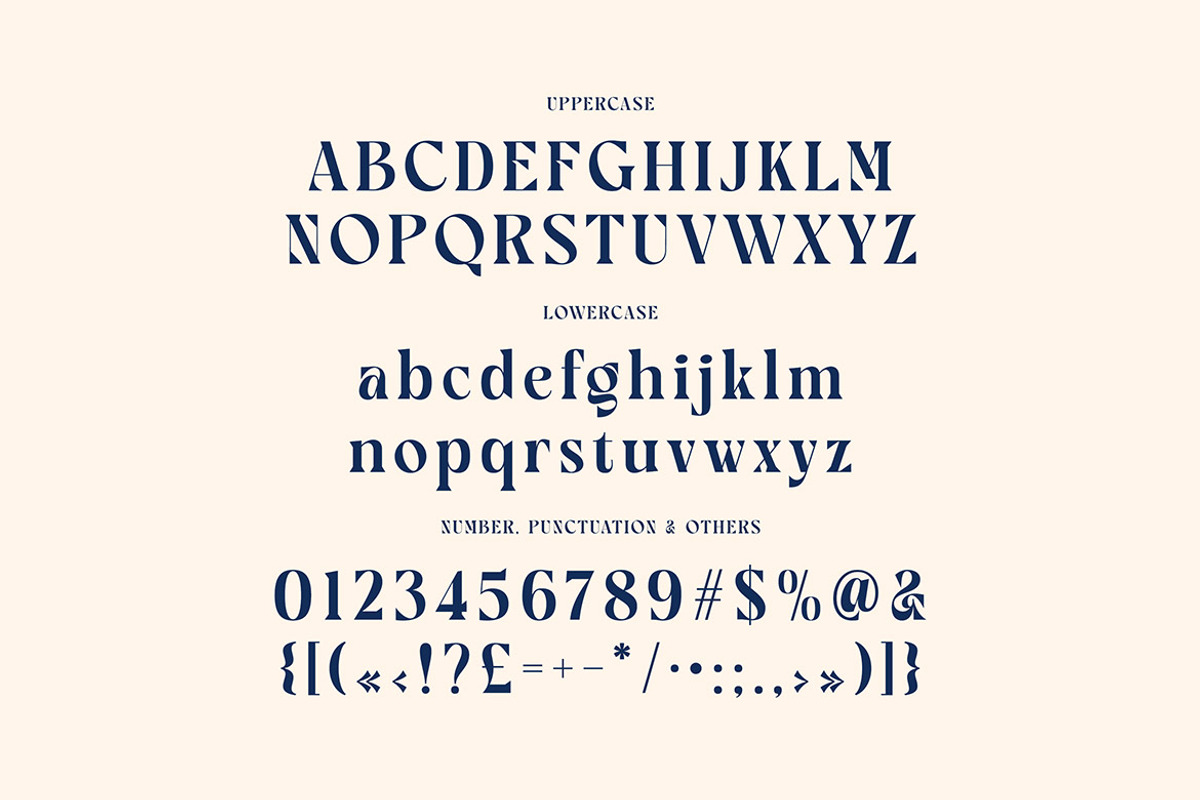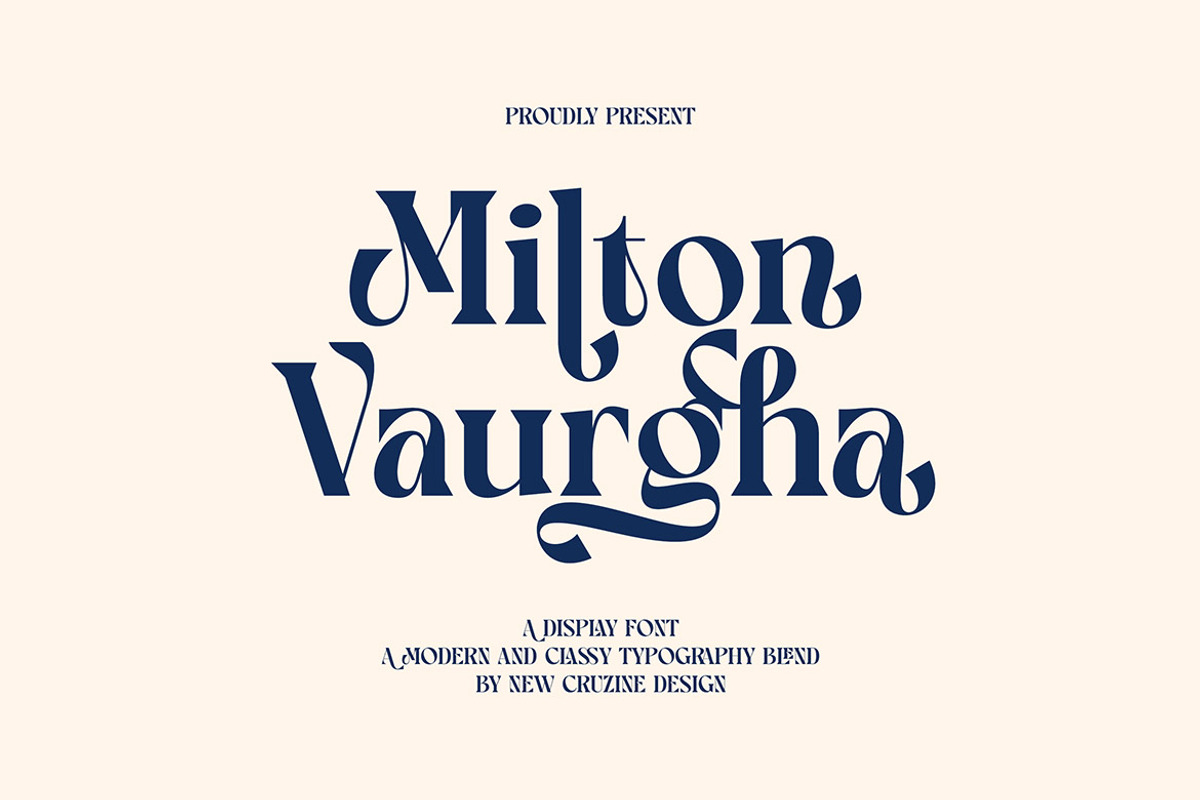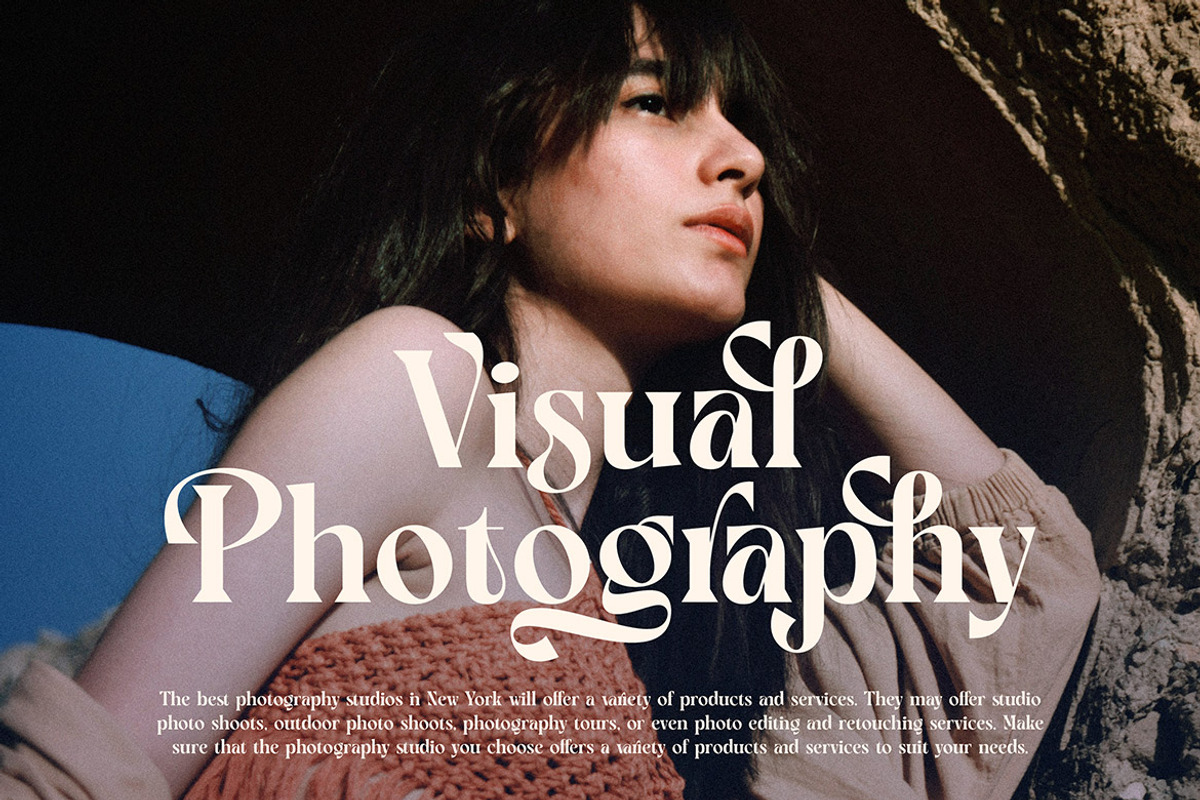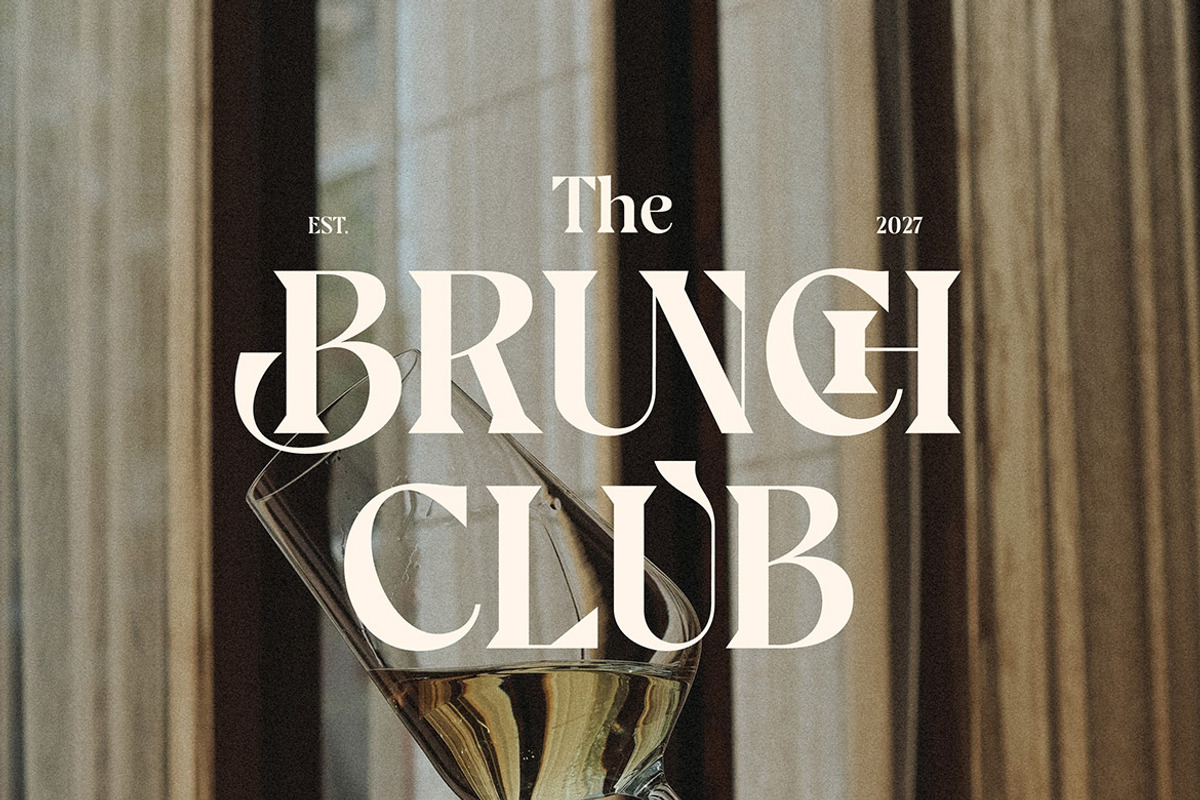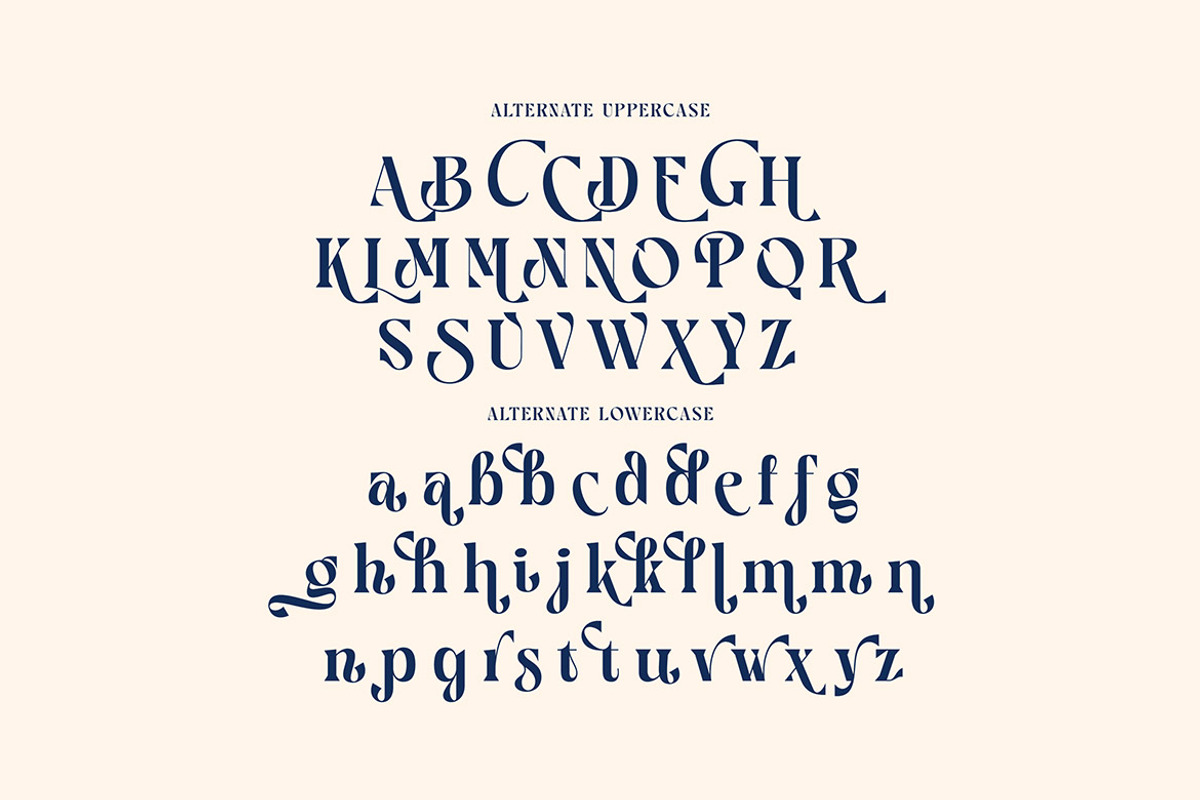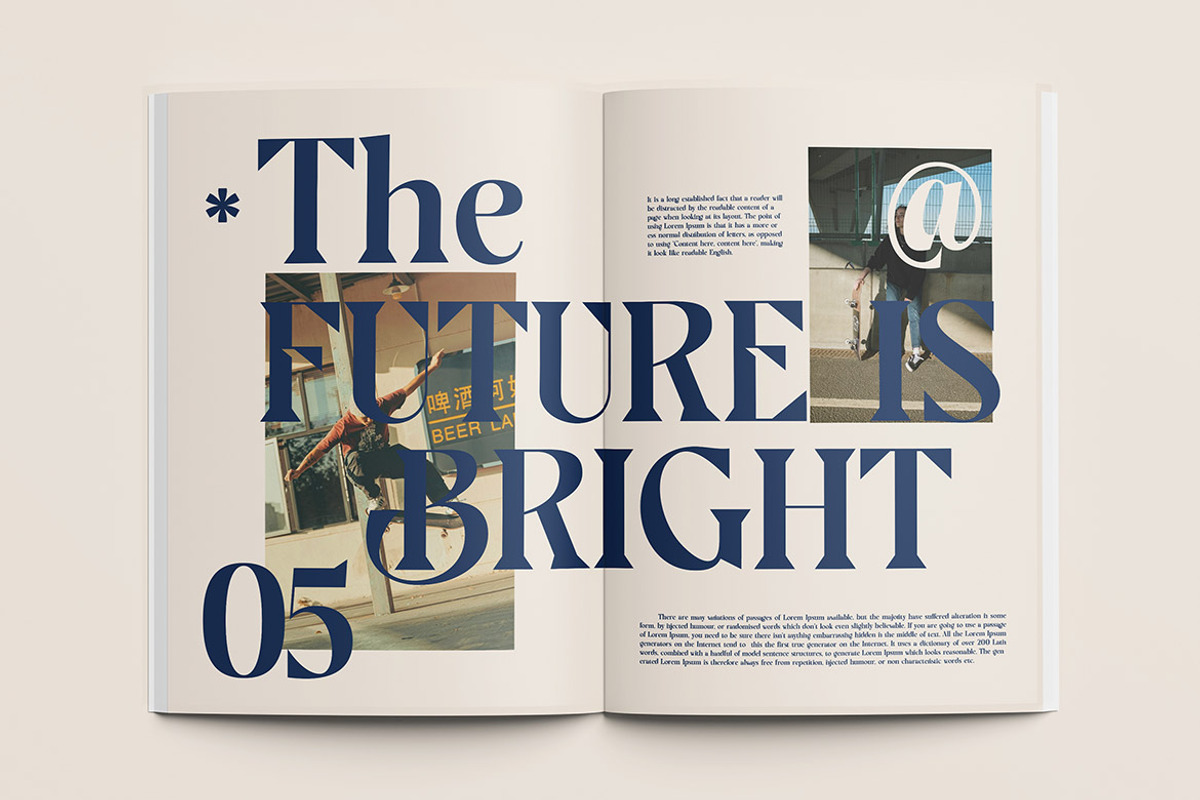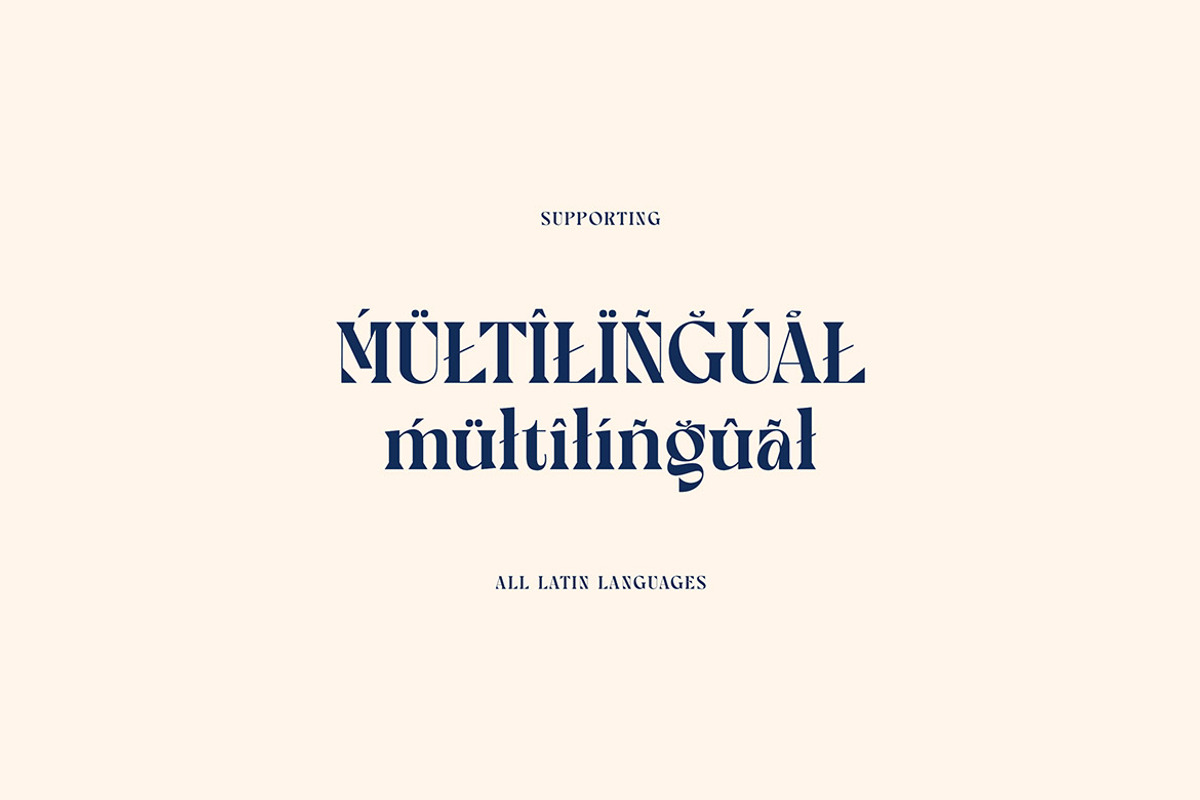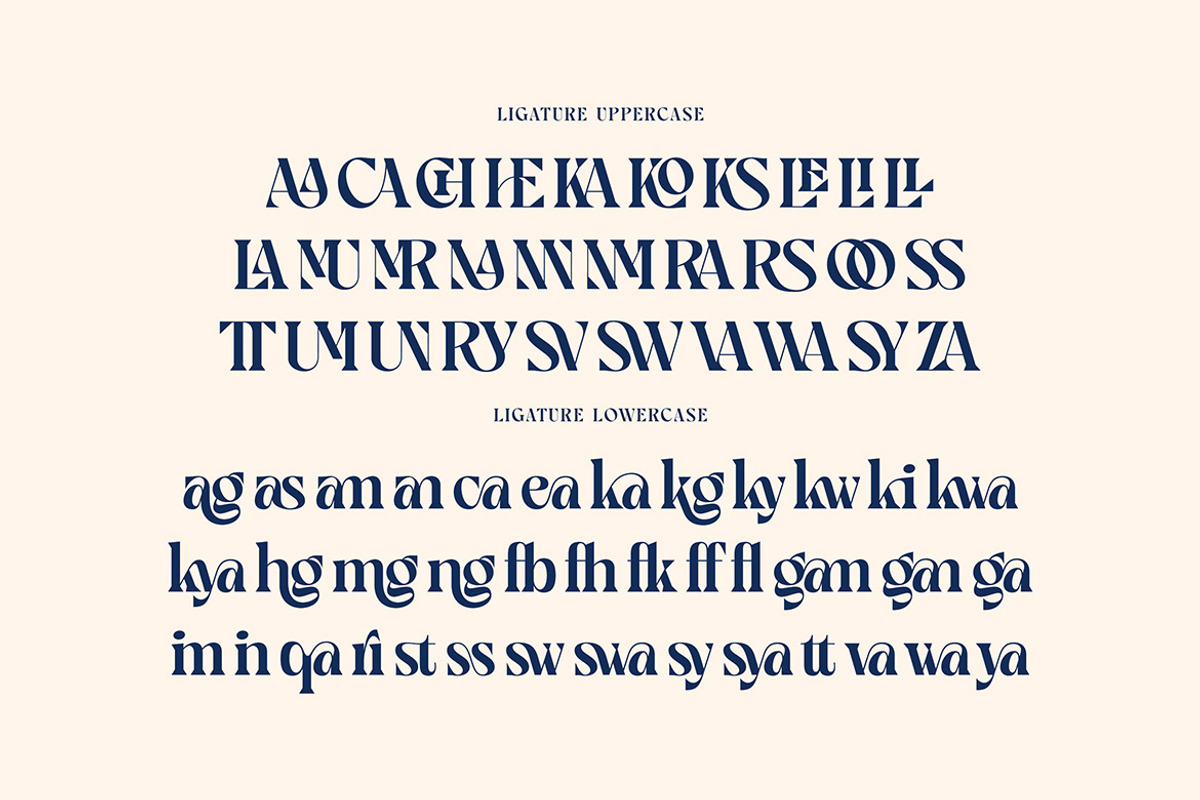
Milton Vaurgha Retro Serif
Trendy, modern, unique, urban, crazy & retro style serif font for your new creative projects. Stylish, sharp and playful style on Milton Vaurgha font will be great for any modern or punk branding project. Lot of alternates and ligatures will help you to create unique and original logo design or website header! Enjoy :)
- Alternate characters & lot of ligatures
- Great for modern branding projects!